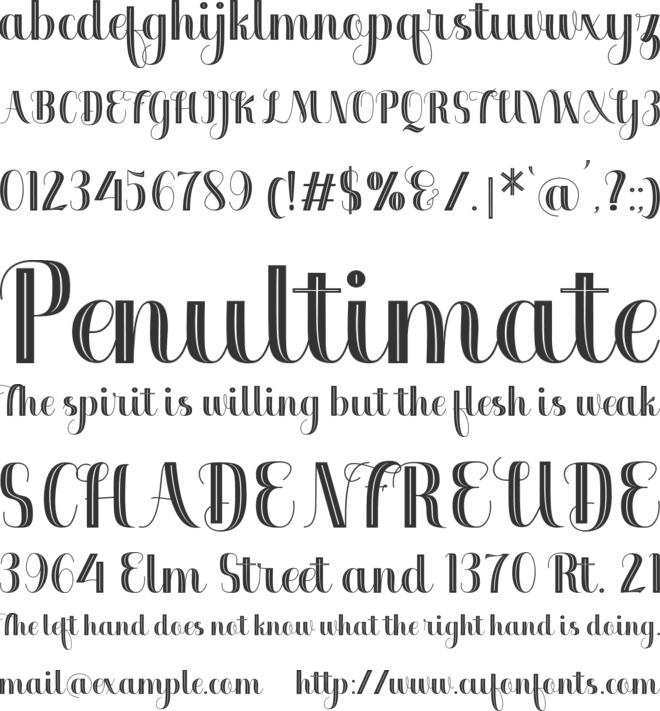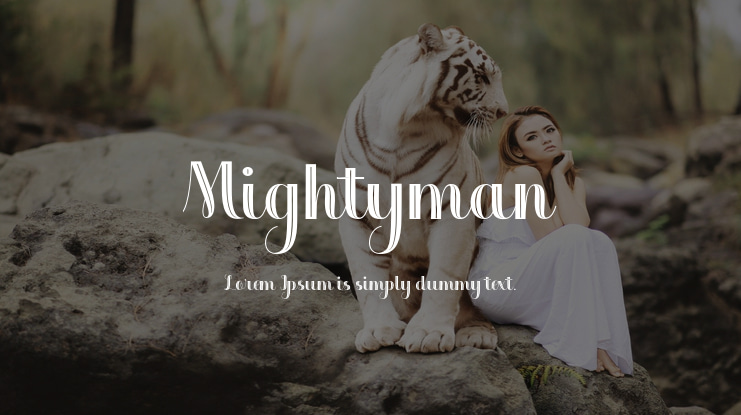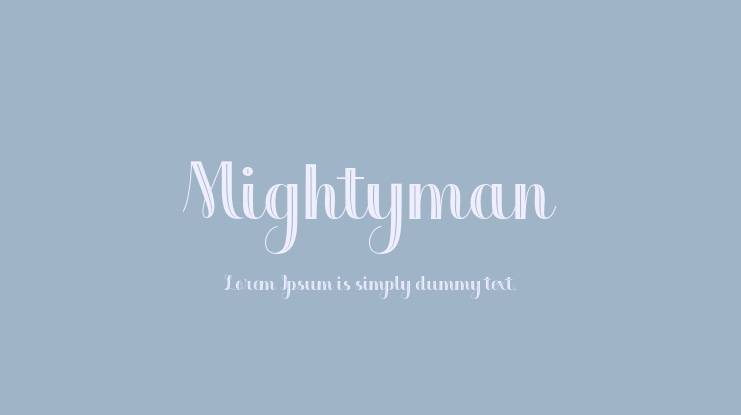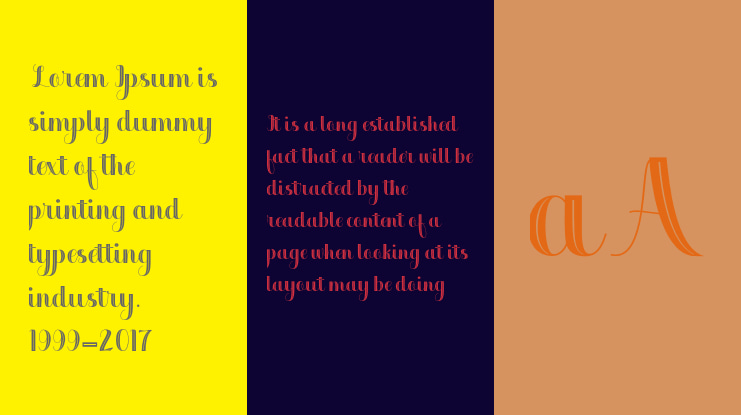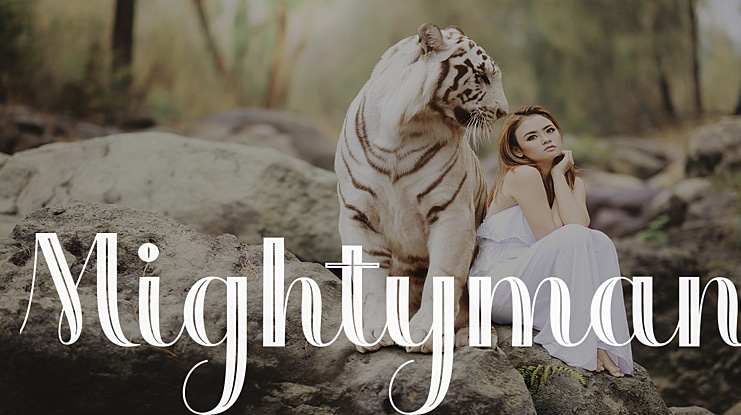
Mightyman Font
This is a romantic and sweet calligraphy font with characters that dance along the baseline. You can use it as logos, badges, packaging, titles, posters, t-shirts / clothes, greeting cards, and wedding invitations. Flowing characters are ideal for creating interesting messages, mixing and matching Montana with many alternative characters that fit your project.
Alternative characters in this font are divided into several OpenType features such as Stylistic Alternate, Stylistic Sets, and Ligature. The OpenType feature can be accessed using OpenType programs such as Adobe Illustrator, Adobe Photoshop, and Adobe InDesign.